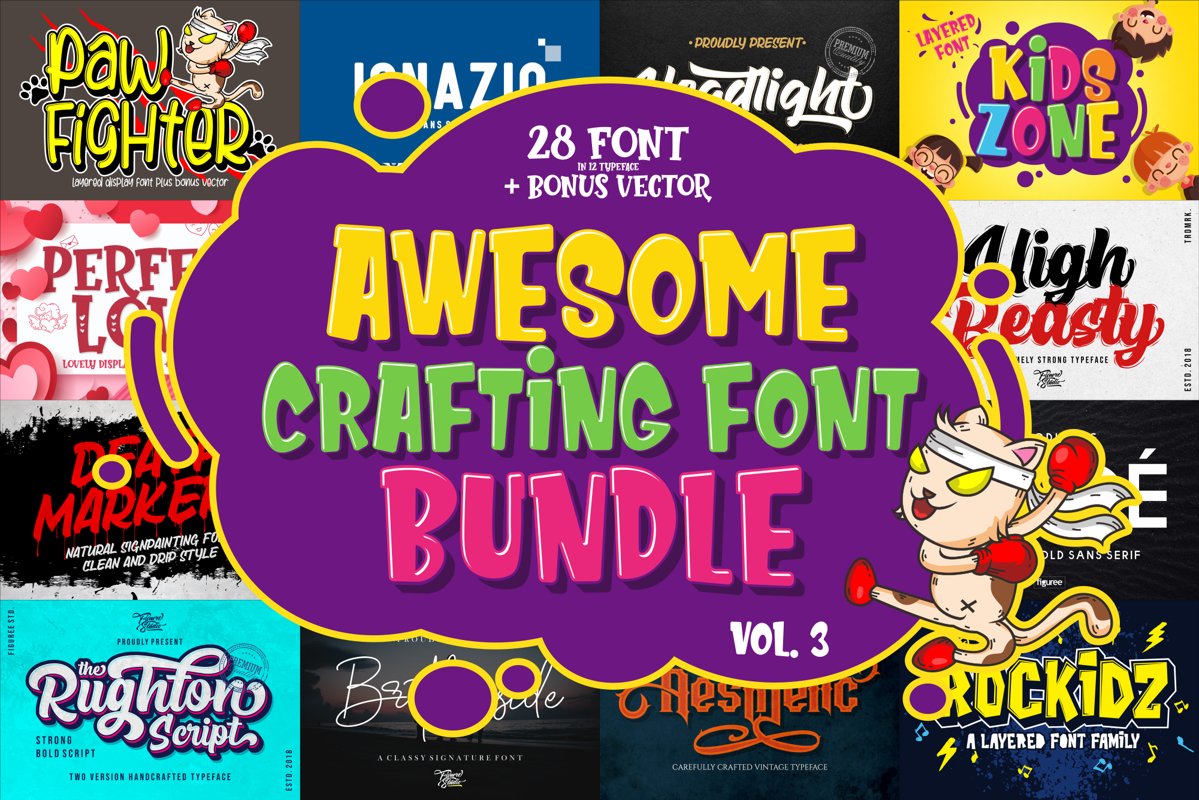
Awesome Crafting Font Bundle Vol. 3
Ignazio Outline Italic
Headlight
Brotherside Signature
High Beasty
The Rughton Script 02
Death Markers Drip
The Rughton Script
Kids Zone Inner
Rockidz
Rockidz Shadow
BOLDE
BOLDE LIGHT
BOLDE BOLD
BOLDE ITALIC
Rockidz Inner
BOLDE HOLLOW
Rockidz Carved
Rockidz Outline
Aesthetic
Paw Fighter Inline
Perfect Love
Ignazio
Paw Fighter Regular
Ignazio Italic
Kids Zone Shadow
Paw Fighter Shadow
Rockidz 3D
Death Markers
Kids Zone
Ignazio Outline
Perfect Love Carved
It does not include ALL of my fonts - just a mix of different styles of our awesome crafting display font!
This bundle is perfect for something that carries cartoon themes, children's books, funny greeting cards, food package designs, simple logotype, t-shirt design, bottle label, games application name, vintage poster or abstract images, and many more.